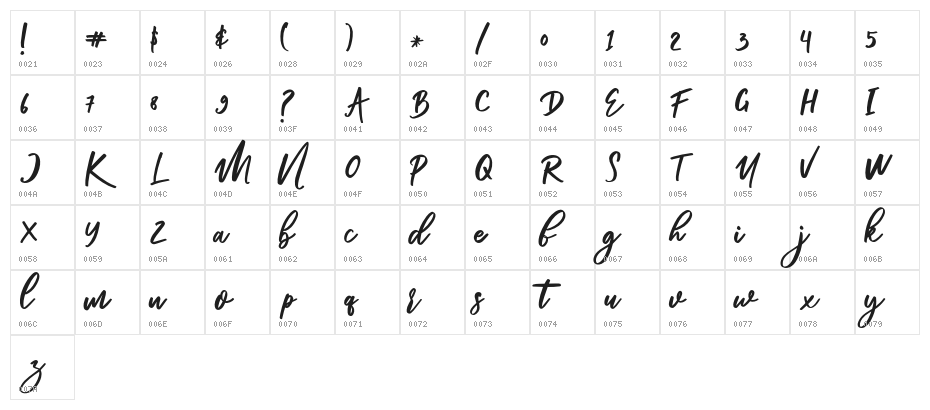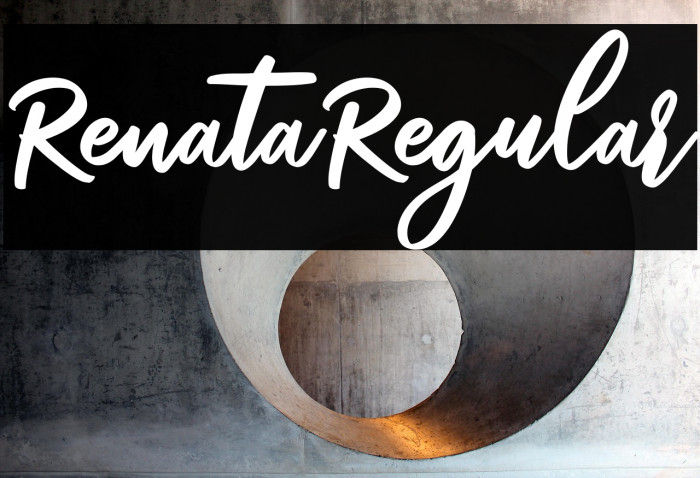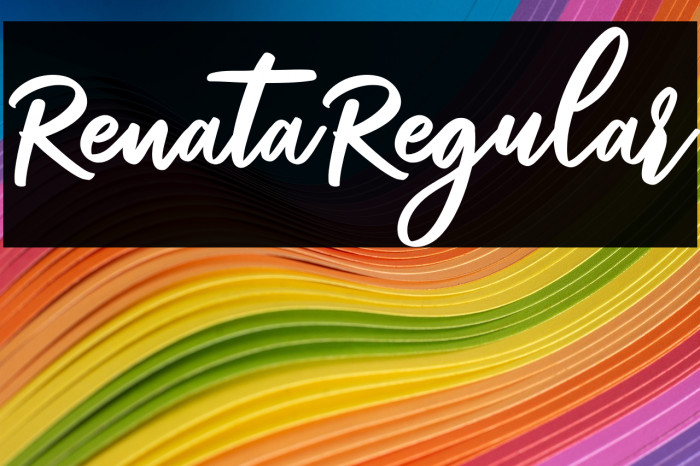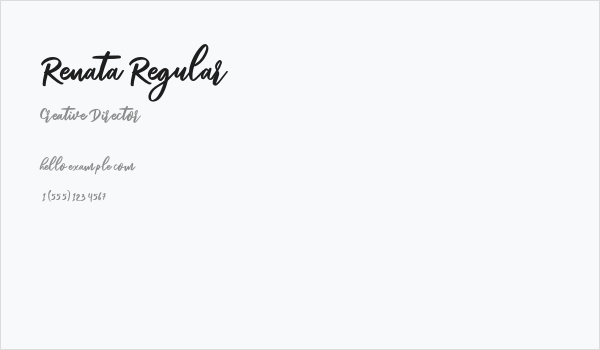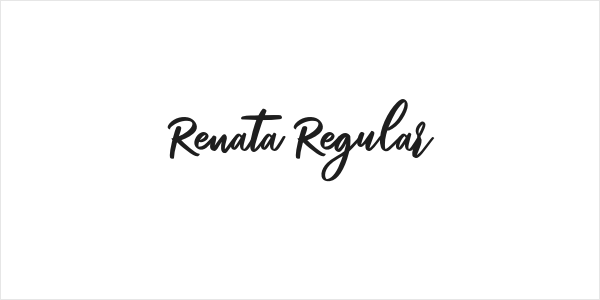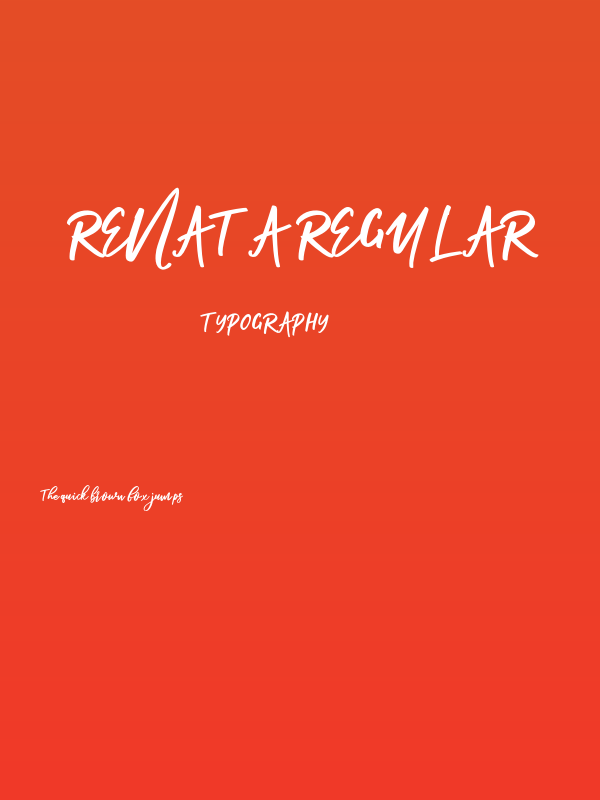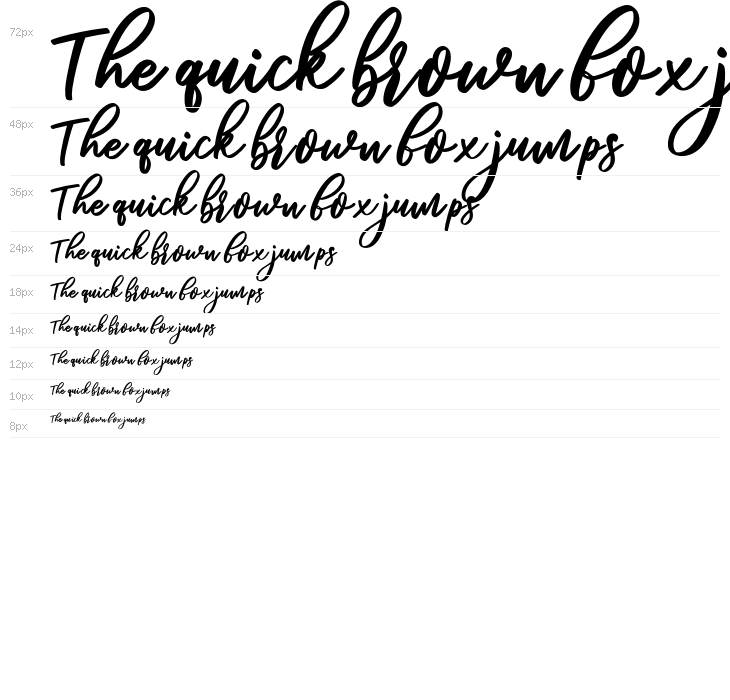
Renata-Regular Font
Renata-Regular Description
This font features a dynamic and fluid handwritten style, characterized by its smooth, flowing strokes and natural, organic curves. The uppercase letters exhibit a bold and confident presence, while the lowercase letters maintain a consistent rhythm and elegance. The numerals are clear and legible, complementing the overall aesthetic. Special characters are thoughtfully integrated, maintaining the font's cohesive look. The design exudes a sense of creativity and personal touch, making it suitable for projects that require a personal or artistic flair.
| Use Case | Logos, Headlines, Artistic projects |
| Proposed Projects | Ideal for branding, invitations, greeting cards, and artistic projects that require a personal touch. |